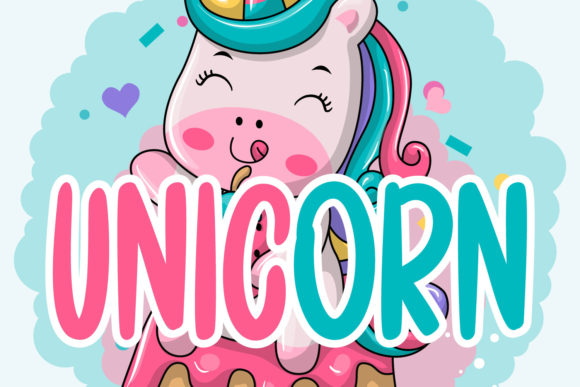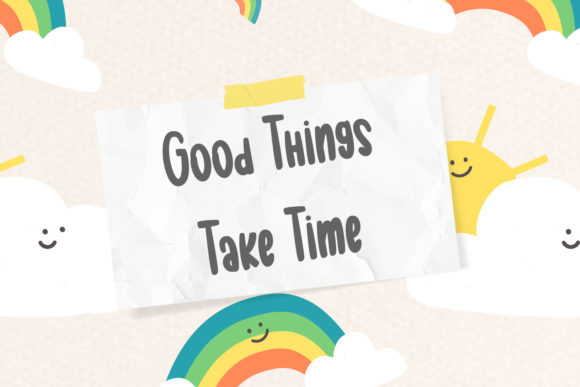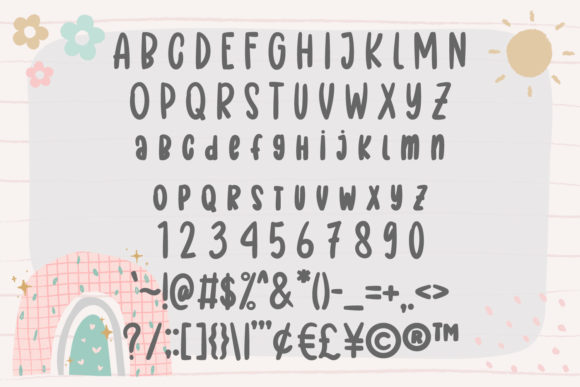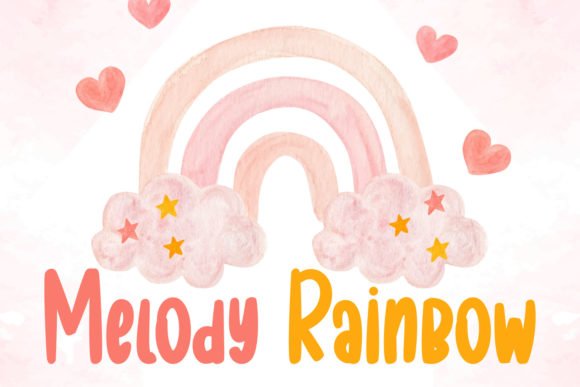
Introduction to Melody Rainbow Font
Melody Rainbow is a fun, quirky and joyful display font.
Whether you’re using it for crafts, digital design, presentations, or making greeting cards, this font has the potential to become your favorite go to font, no matter the occasion .
Key Features of Melody Rainbow Font
Why Choose Melody Rainbow Font?
Melody Rainbow Font offers exceptional quality and versatility, making it a valuable addition to your design toolkit. Whether you’re creating for personal projects or commercial use, Melody Rainbow Font delivers professional results.